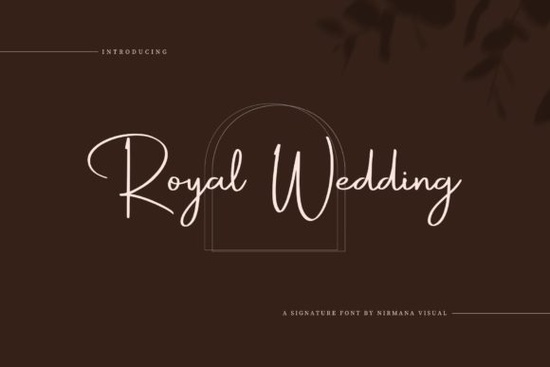
If you’re looking for a script font that feels elegant without being fussy, Royal Wedding might be exactly what your next project needs. It’s the kind of typeface that works just as well on a boutique logo as it does on a custom t-shirt or wedding invitation. Clean curves, balanced spacing, and a touch of personality make it easy to use even if you’re not a professional designer.
What I like about this font is how quietly confident it looks. You don’t need to add swirls or extra embellishments to make it feel special. It holds its own in minimalist layouts, but also layers nicely with textures, photos, or hand-drawn elements. If you’ve ever tried using something like Brittney Signature for personal branding, you’ll find Royal Wedding has a similar warmth but with slightly more structure which can be helpful when readability matters.
What kinds of projects is this font actually good for?
It’s labeled “Royal Wedding,” but don’t let that fool you into thinking it’s only for bridal stuff. Sure, it’s great for save-the-dates, place cards, or monogrammed napkins but it’s also surprisingly versatile. Here are some real uses I’ve seen (and tried) myself:
- Small business logos especially boutiques, bakeries, florists, or handmade goods shops.
- T-shirt and tote bag designs pairs well with short phrases or single words.
- Social media quote graphics clean enough to read on mobile, stylish enough to stand out.
- Product packaging think candles, soaps, tea blends, or artisan snacks.
- Digital planners or printable kits headers, dividers, or decorative accents.
If you’re comparing options, take a look at Perfect Signature too it’s got a looser, more handwritten vibe. Royal Wedding sits somewhere between that and something like Alexia Bright, which leans more formal. It’s a nice middle ground if you want elegance without stiffness.
Will this work if I’m not a pro designer?
One thing that helps: the spacing between letters feels intentional. Some script fonts turn into a tangled mess when you type longer words, but this one stays legible. That’s huge if you’re making signs, labels, or anything customers need to read quickly.
How does it pair with other fonts?
Really well, actually. Because it’s not overly ornate, you can match it with almost any clean sans-serif. Try pairing it with something neutral like Montserrat, Lato, or even Arial if you’re keeping it simple. For contrast, throw in a bold slab serif the mix of soft curves and hard edges creates nice visual tension.
If you’re building a full brand kit, consider grabbing Asking for a Friend as a secondary script. It’s got more bounce and energy, so you can use Royal Wedding for headlines and the other for supporting text or casual accents.
Quick checklist before you start your project:
- Test your exact phrase in the live preview tool.
- Download all formats you never know which app you’ll end up using.
- Check kerning manually even good scripts sometimes need tiny spacing tweaks.
- Save a backup of the original files updates happen, and you’ll want the clean version later.
- Pair it intentionally pick one complementary font and stick with it for consistency.
Fonts like this don’t shout they whisper. And sometimes, that’s exactly what your design needs. Whether you’re making something for yourself, your shop, or a client, Royal Wedding gives you polish without pretense. Give it a try on something small first. You might be surprised how much difference a thoughtful typeface can make.